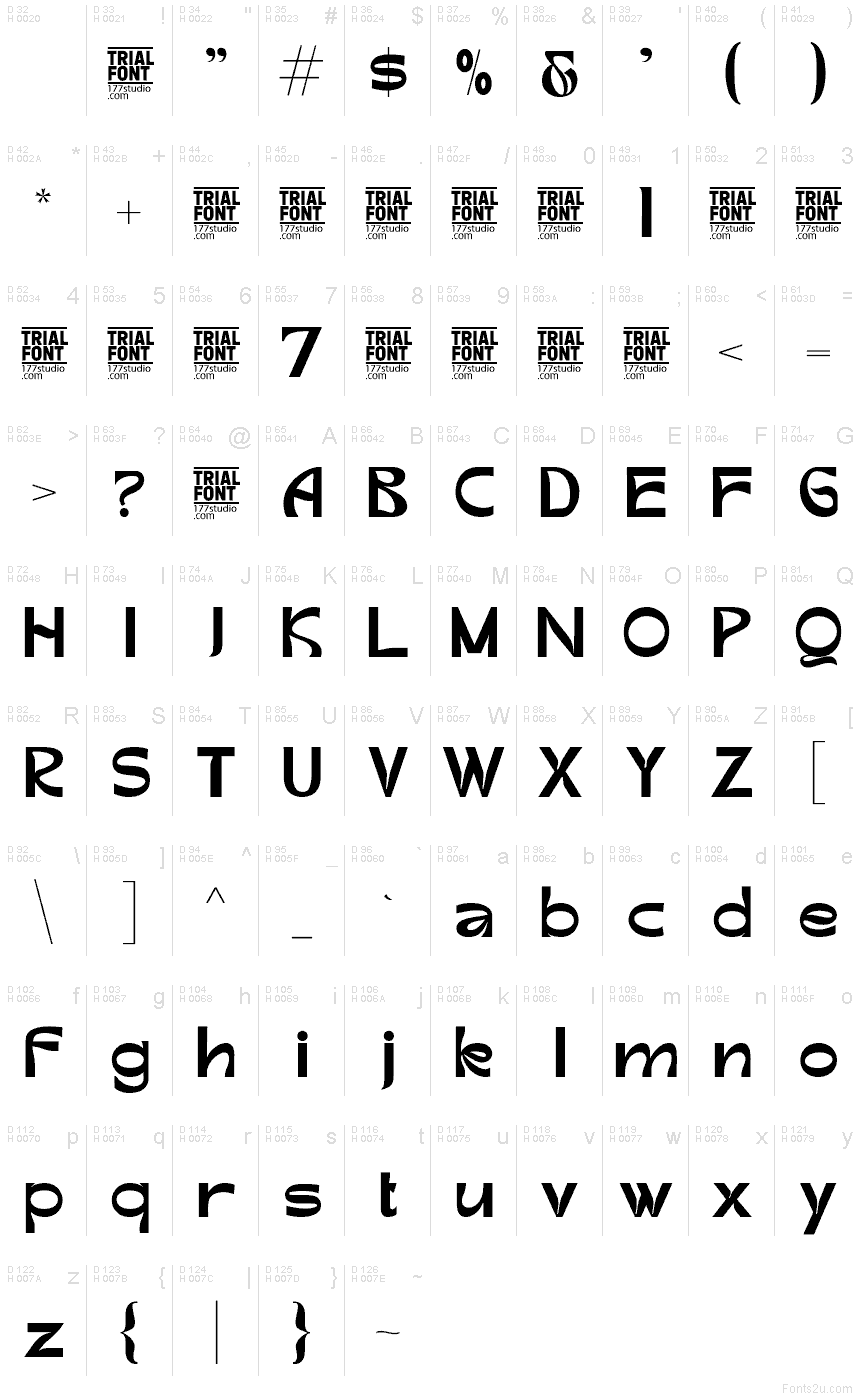
Gares Demo Regular
Gares font by 177Studio is an expanded display font that combines the elegance of expressive characters with a gentle and harmonious modernist feel. An artistic flair emerges from its smooth and well-controlled curvatures that appear on every corner, ensuring that the result delivered is as refined as ever.
This free display font can be used for branding designs, product packaging, food magazines, and restaurant menus. Romantic novels are also options since each design created with it presents a soft tone.